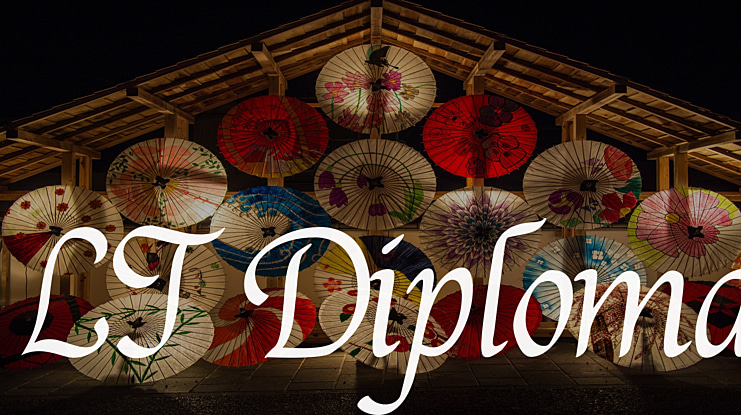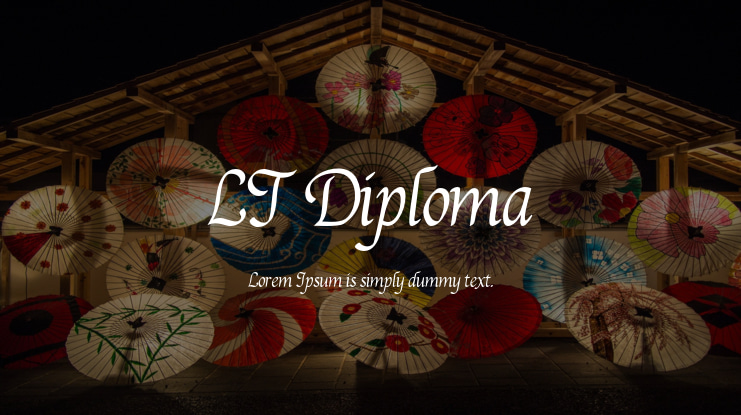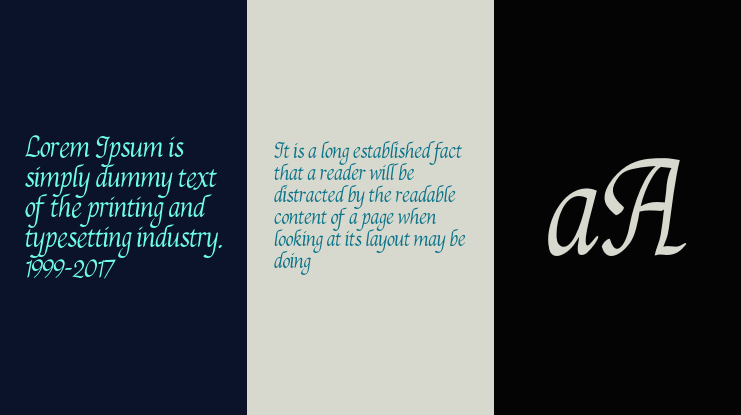
LT Diploma Font
A calligraphic font - usable for diplomas, certificates, and anything that has Chancery-esque fonts involved.
Part of LyonsType Classics.